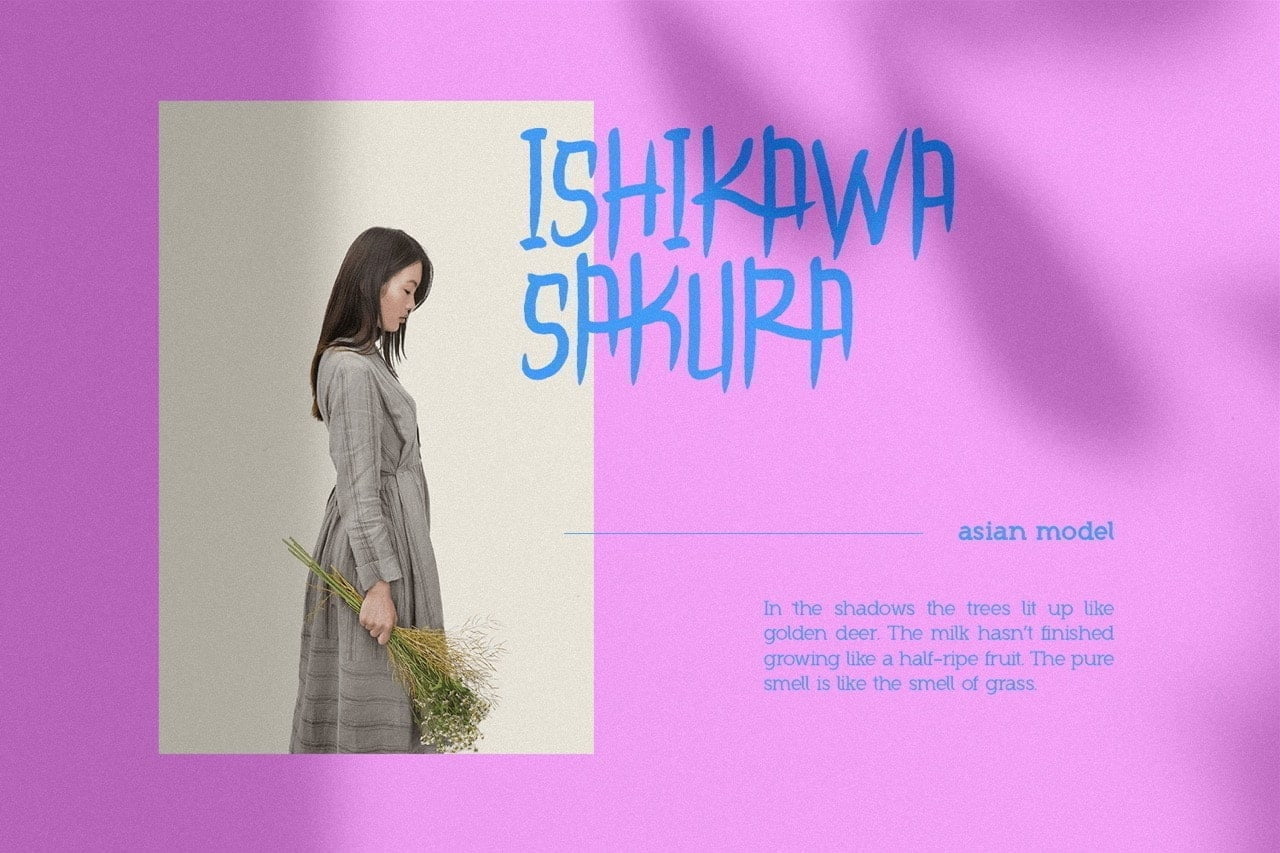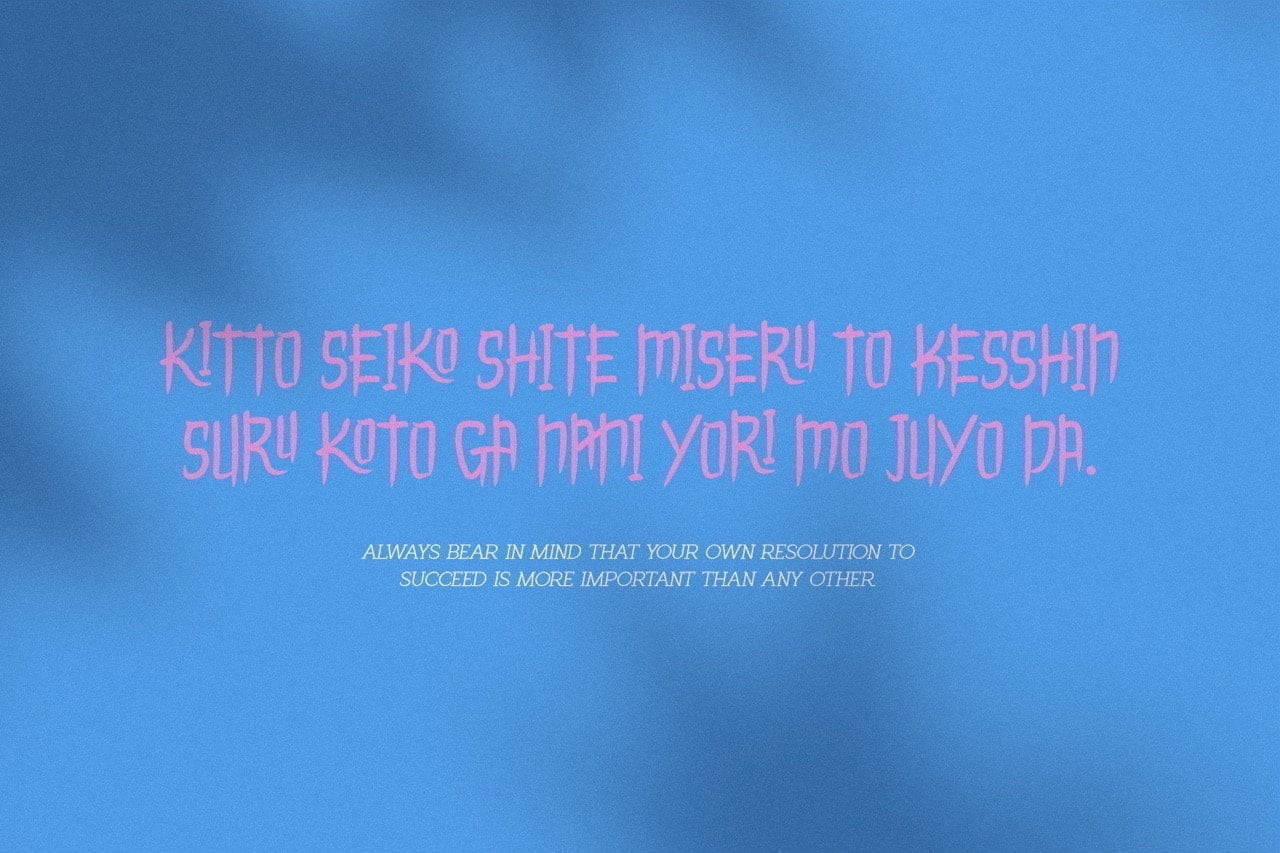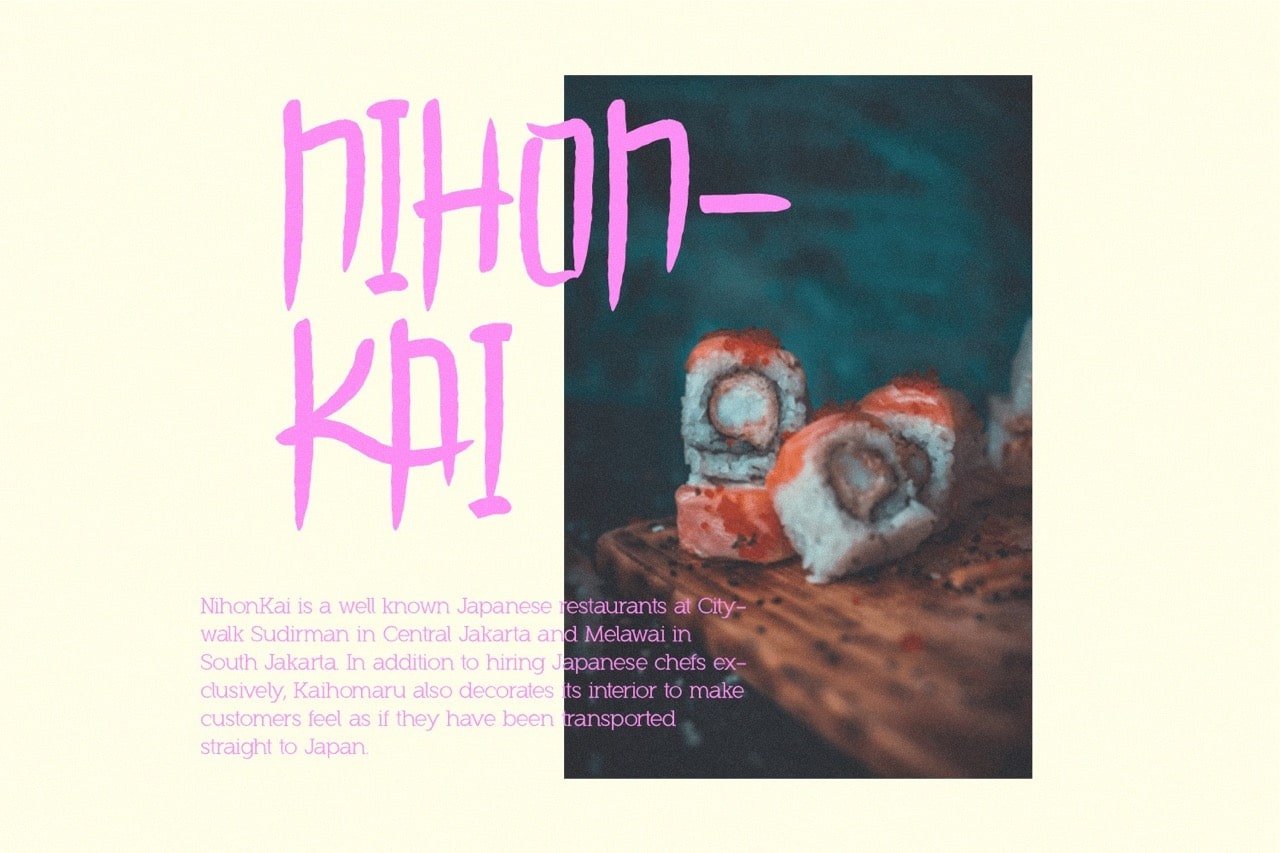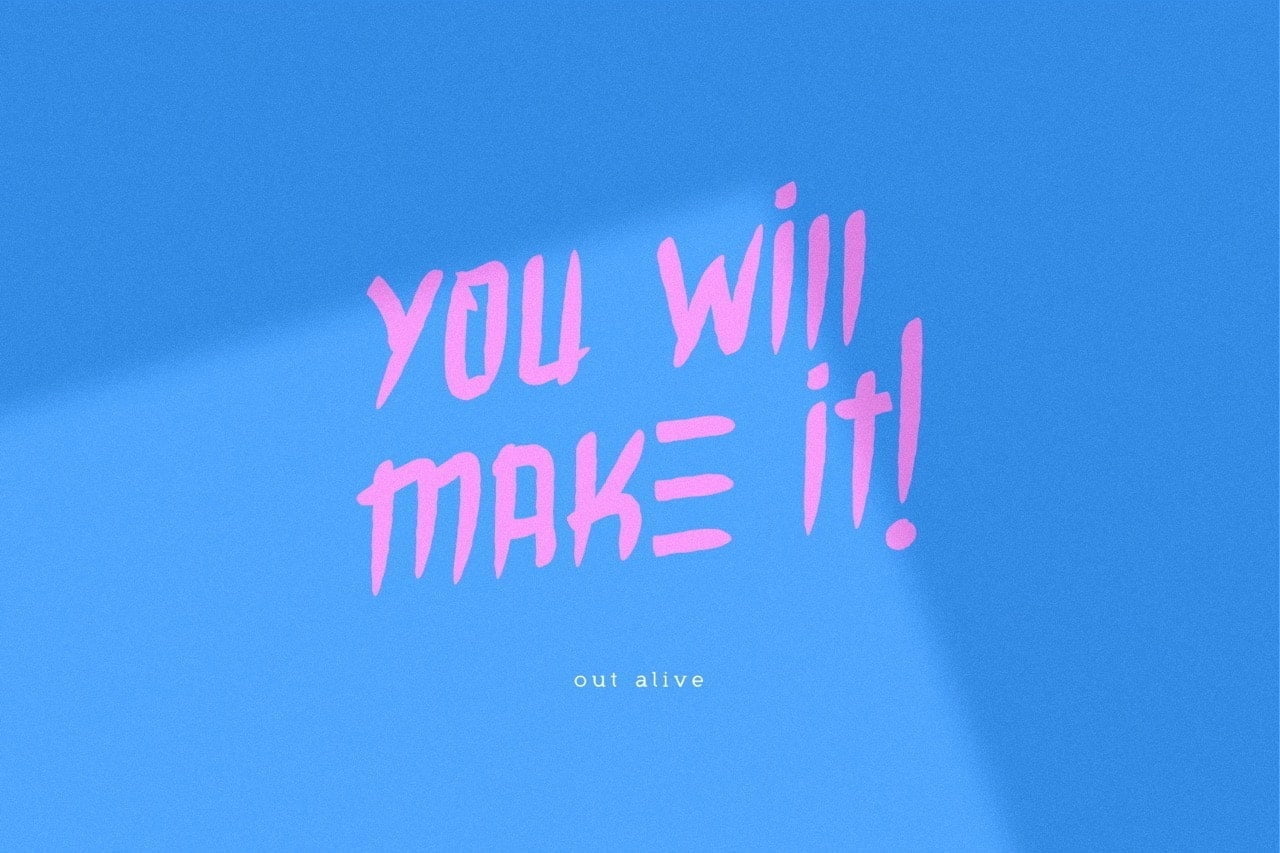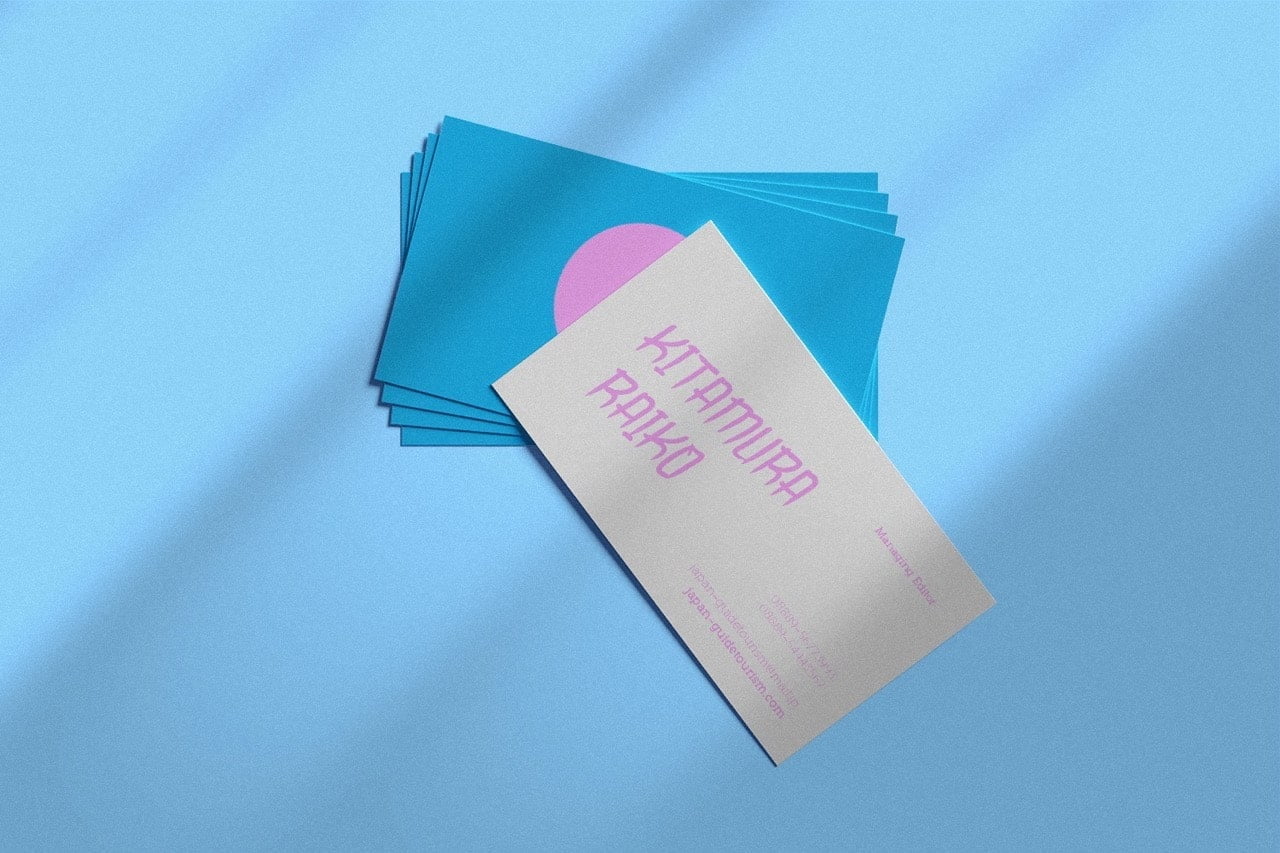
Momo is a handcrafted brush font inspired by Japanese anime. It has an asian and oriental look, making it a perfect companion for your creative project or just about anything else.
- 2 Styles (Regular and Italic)
- Stylistic Ligatures and Alternate Glyphs
Momo Japanese Font